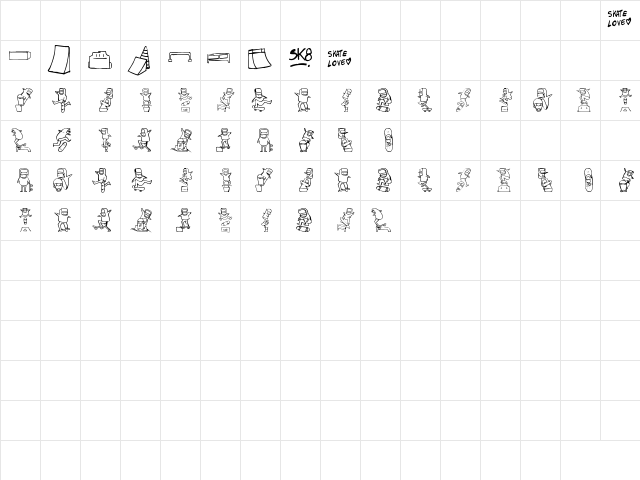
skatelove 2.0 Regular Font Preview
skatelove 2.0 Regular
skatelove 2.0 Regular Font Details
Design Context for skatelove 2.0 Typeface
skatelove 2.0 is a composed and adaptable typeface that performs quietly and consistently across a wide range of design contexts.